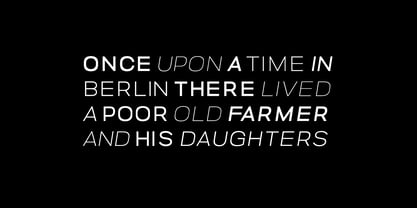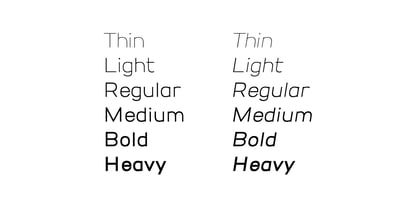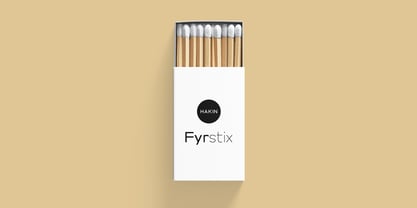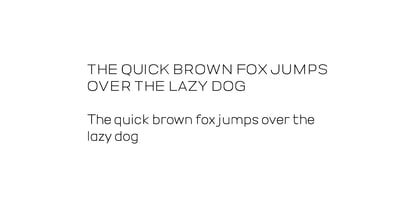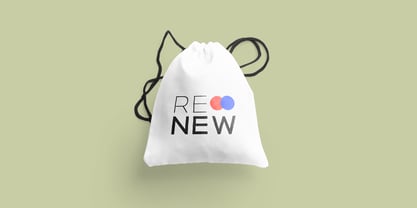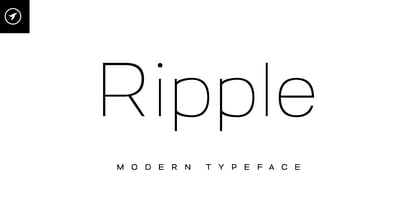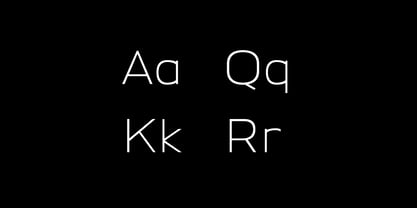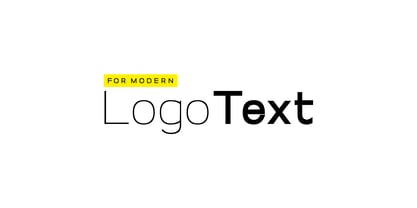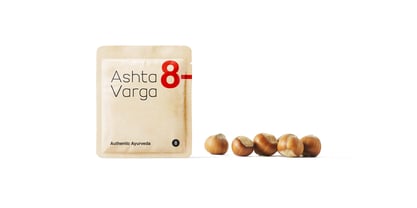
Ripple Nuvo
The Ripple Nuvo Font Family was designed by Jean Johnson and published by Designova. Ripple Nuvo contains 12 styles and family package options. More about this family
RIPPLE is a minimal and modern Sans Serif typeface best suited for creating logotypes, branding, headlines, corporate identities, marketing materials for web and print, and any type of minimal design. Please see the included demographics to get an idea about the capability of this typeface when used for branding and marketing material design.
The RIPPLE typeface comes in six weights: thin, light, regular, medium, bold, and heavy. Italic versions of all six weights are also available.